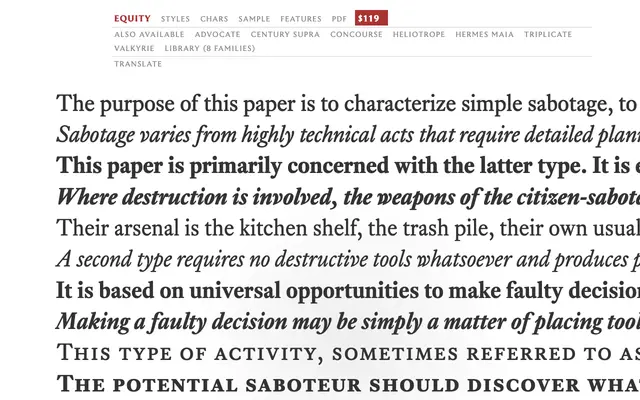
Equity
MB Type · Matthew Butterick
A text serif from Matthew Butterick, designed specifically for legal and academic documents where clarity at small sizes is the primary concern.
Equity is built for long-form reading in professional and legal contexts, with proportions and spacing tuned for the kind of dense, small-print documents common in law and academia. It sits in a tradition of transitional serifs but is shaped by practical constraints rather than historical revival. MB Type packages it for workaday document use, making it a rare serif that genuinely serves its intended purpose rather than approximating it.
Equity is a serif typeface designed for body text in legal and academic documents, drawing on transitional serif conventions with refined proportions suited to small sizes and long-form reading.